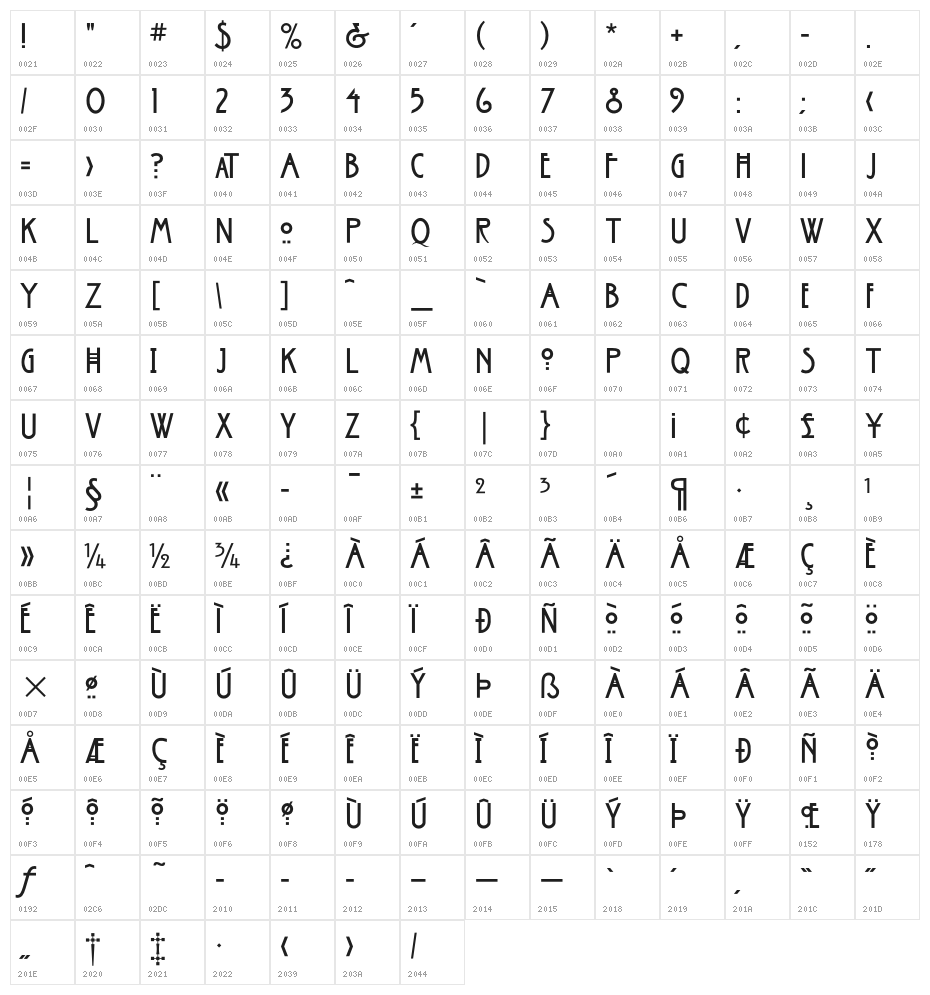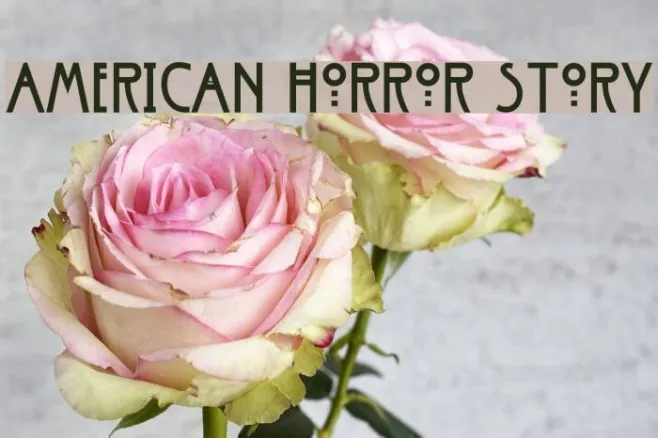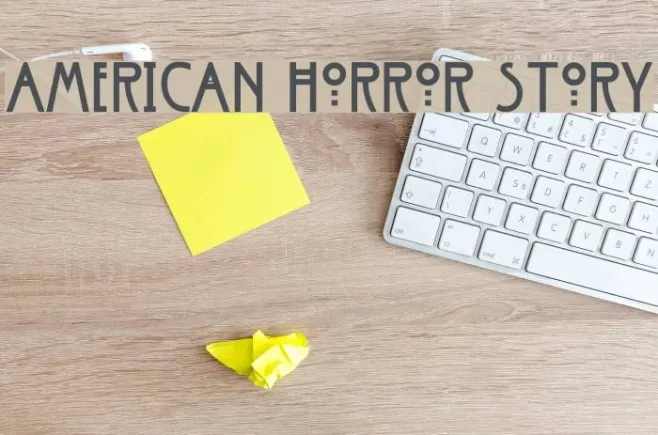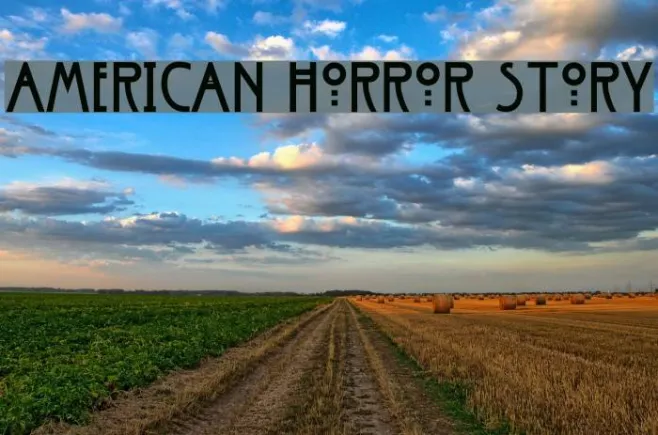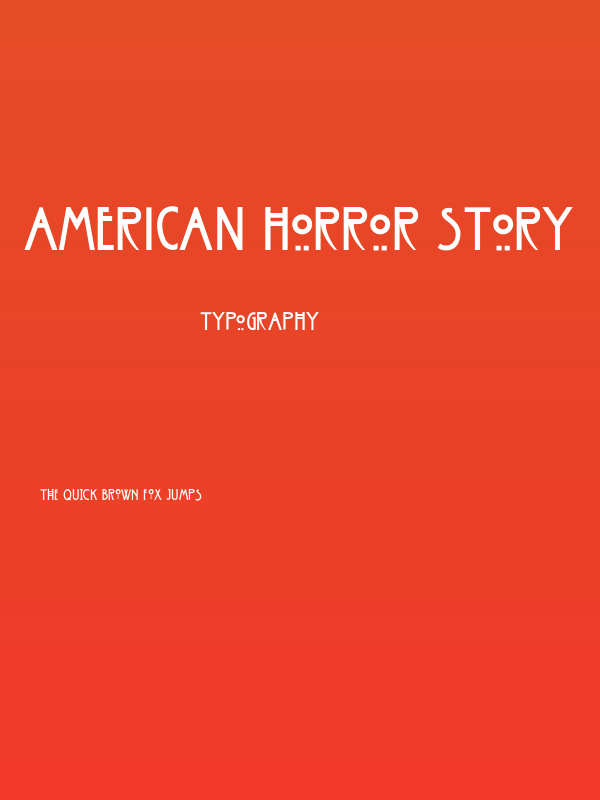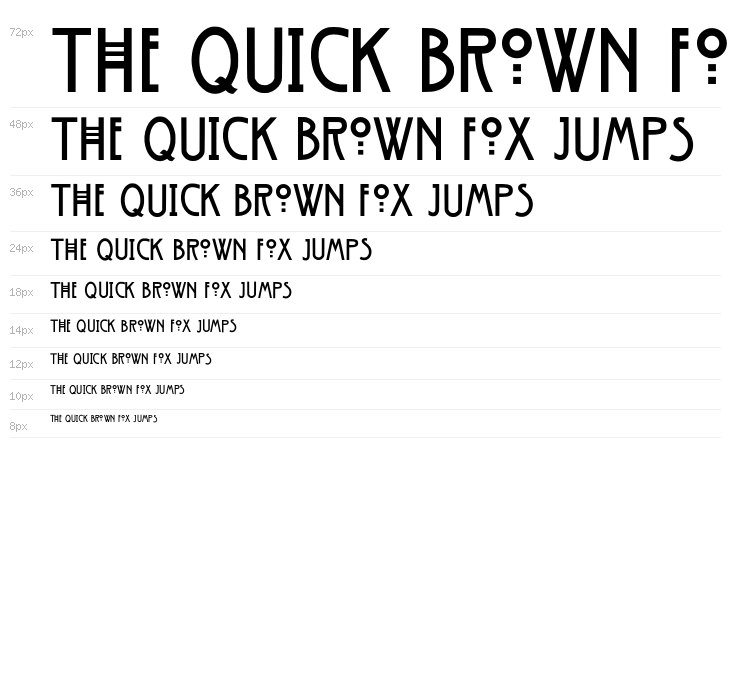
American Horror Story Font
American Horror Story Description
This font features a distinctive, eerie style with elongated, sharp-edged characters that evoke a sense of mystery and suspense. The uppercase letters are tall and narrow, with unique angular cuts that give them a slightly unsettling appearance. The lowercase letters maintain a similar aesthetic, with some characters featuring unexpected curves and angles. The numbers are consistent with the overall style, presenting a bold and striking look. Special characters are designed to complement the alphabet, with a mix of sharp and rounded elements. This font is perfect for creating a dramatic and haunting atmosphere, making it ideal for horror-themed projects.
| Proposed Projects | Ideal for horror movie posters, thriller book covers, Halloween event promotions, and any project requiring a suspenseful or eerie aesthetic. |